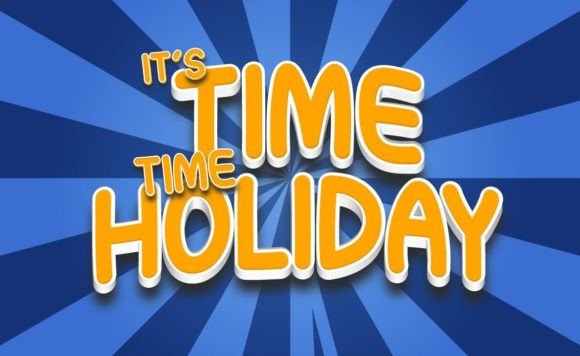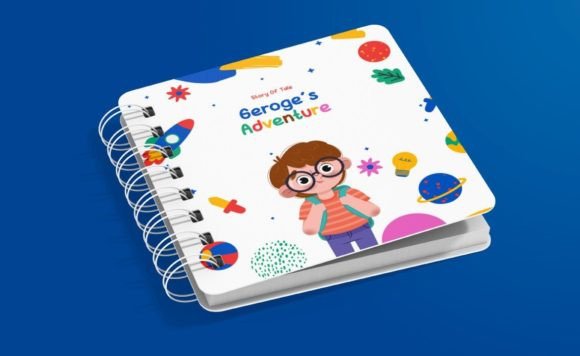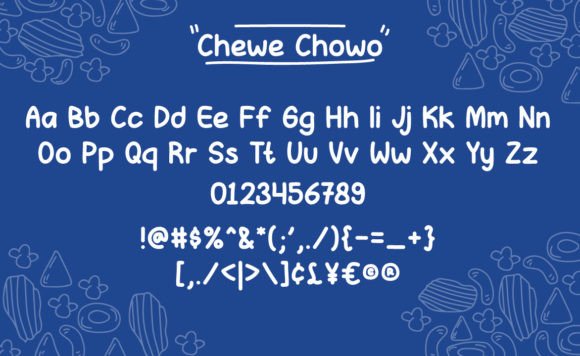
Chewe Chowo Font
Chewe Chowo is a playful and cute display font. Its dynamic characters make this font suitable for a large variety of projects and it will instantly make your creations stand out!